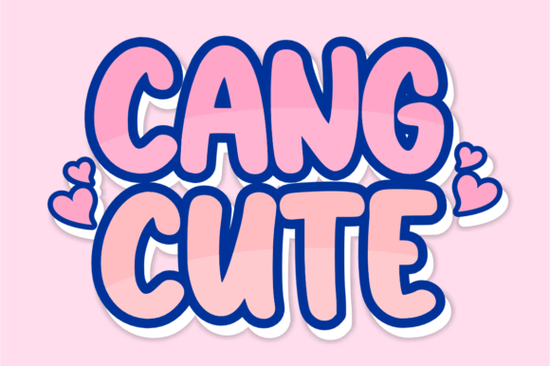
If you're looking for a display font that’s both bold and full of personality, Cang Cute Font might be exactly what your next project needs. Designed with a playful stacked aesthetic, it brings depth and dimension to text without requiring complex layering or effects. Its bubbly, rounded shapes and clean overlapping layers give every word a cheerful, almost animated presence perfect for creators who want their designs to feel energetic and approachable.
This isn’t just another cute font it’s built with intention. The thick letterforms come with built-in outlines and subtle highlights that mimic a soft 3D or “balloon” effect. That means whether you’re designing a birthday invitation, a streetwear tee, or a social media graphic, your text already has visual pop straight out of the box.
What kinds of projects work best with Cang Cute?
Cang Cute shines in contexts where fun, youthfulness, and visibility matter. Think of it as the typographic equivalent of a highlighter pen: it grabs attention while staying friendly. Here are some real-world uses that match its vibe:
- Digital and physical stickers – especially for planners, laptops, or water bottles
- Kids’ apparel and streetwear – hoodies, tees, and tote bags with bold slogans
- Social media content – quote graphics, Reels thumbnails, or Instagram story overlays
- School-themed crafts – classroom name tags, bulletin board headers, or teacher appreciation gifts
- Cricut and Silhouette projects – thanks to its clear outlines and solid forms, it cuts cleanly
- Party stationery – from birthday invites to candy bar labels with a nostalgic early-2000s flair
If your brand leans creative, youthful, or nostalgic like a boutique ice cream shop, a kids’ activity studio, or a retro-inspired merch line Cang Cute adds instant character without feeling gimmicky.
How does it compare to other playful display fonts?
While many display fonts aim for cuteness or edge, Cang Cute strikes a balance. It’s not overly delicate like script fonts, nor is it aggressively blocky. Instead, it sits comfortably between styles like Retro Funky (which leans into disco-era grooves) and Groovy Chunky (with its heavy, psychedelic weight). If you enjoy the dimensional look of Blockton Varsity but want something softer and more rounded, Cang Cute offers that alternative. And unlike ultra-niche options like Vertical Dentist, it’s versatile enough for everyday creative use.
Tips for using Cang Cute effectively
Because of its layered structure, Cang Cute works best at larger sizes think headlines, logos, or short phrases rather than body text. To enhance its built-in depth, try these simple tweaks:
- Add a neon outline in design software for a cyberpunk or Y2K aesthetic.
- Use drop shadows sparingly to amplify the 3D illusion without overwhelming the design.
- Pair it with minimalist sans-serifs for contrast avoid combining it with other decorative fonts.
- Stick to one or two colors per word to maintain clarity; too many hues can muddy the layered effect.
Also, if you’re using it for print-on-demand products, test how the overlaps render on different materials. On dark fabrics, consider using the font in white or light pastels to preserve legibility and charm.
Is Cang Cute right for your next project?
If your goal is to create something that feels joyful, modern, and instantly recognizable, this font delivers. It’s especially useful for designers who don’t want to spend hours building faux 3D text from scratch. The pre-layered style saves time while still offering room for customization.
Before you download, ask yourself: Does my audience respond to playful, tactile visuals? Am I designing for kids, teens, or anyone nostalgic for early-aughts pop culture? If yes, Cang Cute could be a reliable go-to in your toolkit.
Quick checklist before using Cang Cute:
- ✅ Use for short text only (logos, titles, slogans)
- ✅ Scale up never use below 24pt
- ✅ Test color contrast, especially on merchandise
- ✅ Pair with simple, neutral supporting fonts
With its mix of whimsy and structure, Cang Cute isn’t just decorative it’s functional fun. Give it a try the next time your design needs a little extra bounce.